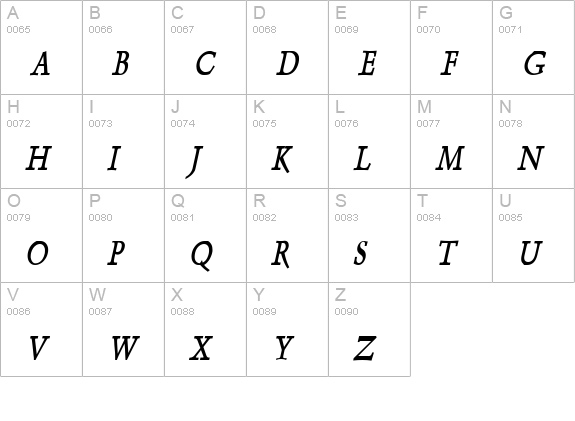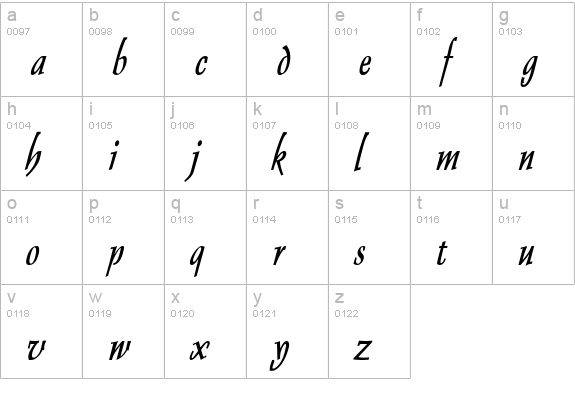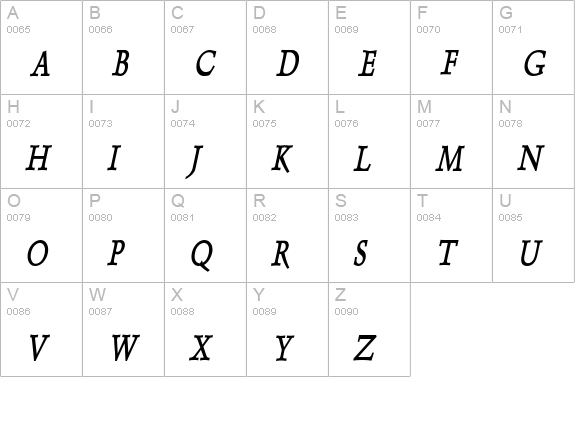
Dolphin Thin Bold Italic is a delicate, low-contrast, italic variant in the Dolphin typeface family \xE2\x80\x94 well suited to fashion editorial, minimal branding, and high-contrast display.
Dolphin Thin Bold Italic font strikes the perfect balance between elegance and modernity with its sleek and sophisticated design. The combination of thin strokes and bold curves creates a unique and eye-catching aesthetic that is sure to make a statement in any design project. The italicized style adds a touch of flair and dynamism, making this font perfect for adding a touch of creativity to your designs. Best of all, Dolphin Thin Bold Italic font is available for free download at FontsMarket.com. Whether you're working on a branding project, a website design, or any other creative endeavor, this versatile font is sure to elevate your work to the next level. Don't miss out on the opportunity to add this stunning font to your collection today!